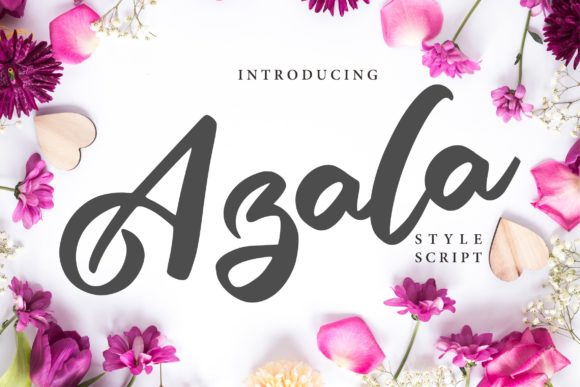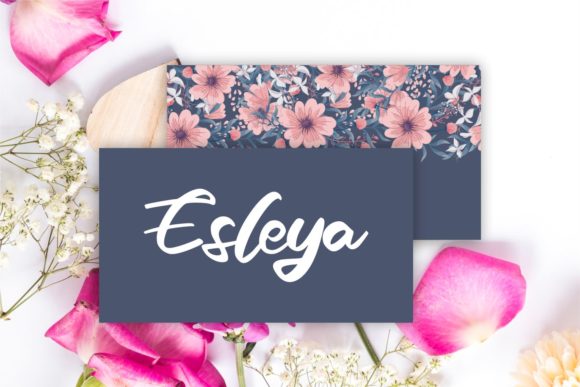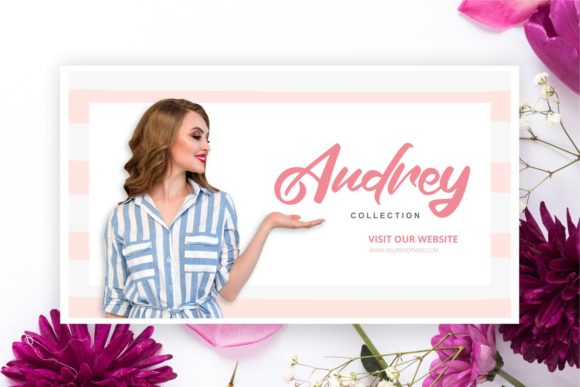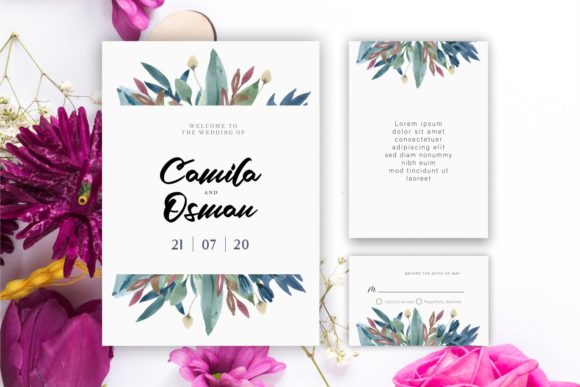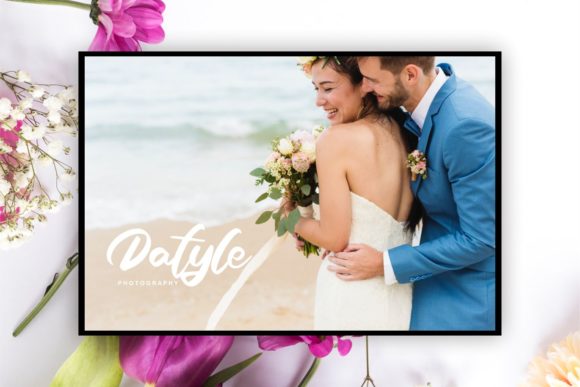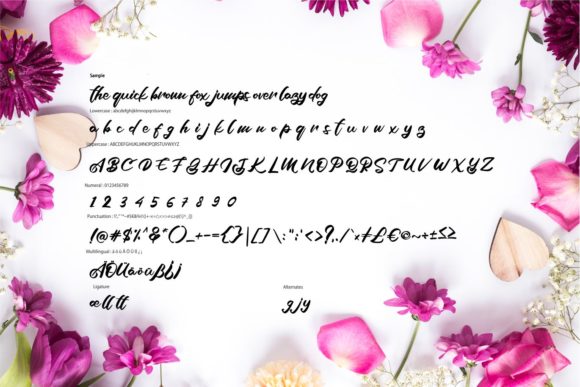
HomeScript FontsAzala Font Script Fonts Azala Font FacebookXPinterestWhatsApp Azala Font Poster 2 Azala Font Poster 3 Azala Font Poster 4 Azala Font Poster 5 Azala Font Poster 6 About Azala Font Azala is a sweet and delightful script with a unique spin. It will add a playful vibe to any craft! DOWNLOAD ON CREATIVE FABRICAThis font is sold and delivered by Creative Fabrica. Font Canyon may earn a commission if you buy through this link. People also explored Junkley Handlle Font Conversion Font Hello Spring Font Samanthy Font Lovingly Font Night Gown Font Mother Love Font Beach Font Love Bird Font 307 0 TagsAzala Font Previous articleHamble FontNext articleRosega Font LEAVE A REPLY Cancel reply Comment: Please enter your comment! Name:* Please enter your name here Email:* You have entered an incorrect email address! Please enter your email address here Website: Save my name, email, and website in this browser for the next time I comment. Personal Use Free Unsteady Overseer Personal Use Free Read more about this font Banana Valentine Personal Use Free Read more about this font Coconote Personal Use Free Read more about this font Panaroe Personal Use Free Read more about this font BLOG 5 Fonts That Will Dominate Design Trends in 2026 5 Fonts for 2026 That Will Dominate Design Trends Typography plays a critical role in visual communication, and as we look ahead to 2026, it’s... Where to Buy American Fonts Online in 2024 Using Fonts in Digital Marketing: Tips to Strengthen Your Brand Identity To increase your work productivity, choose the most readable fonts.